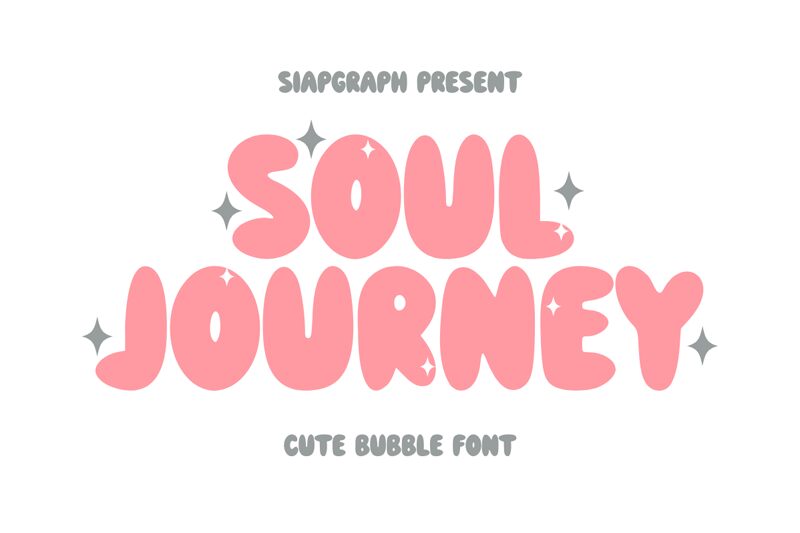
Soul Journey font by Siapgraph is a free cartoon style font that packs friendly energy with a modern touch. Rounded edges and bubbly shapes sum it up as an inviting font for all, be it children or adults with a young heart. It is informal and playful while remaining fitting for professional print and digital purposes.
With its cheerful and whimsical character, the font is very much suitable for kids’ books, toys and games packages, comic books, fun magazine sections, travel blogs, party invitations, event posters, shop branding, and fun videos.